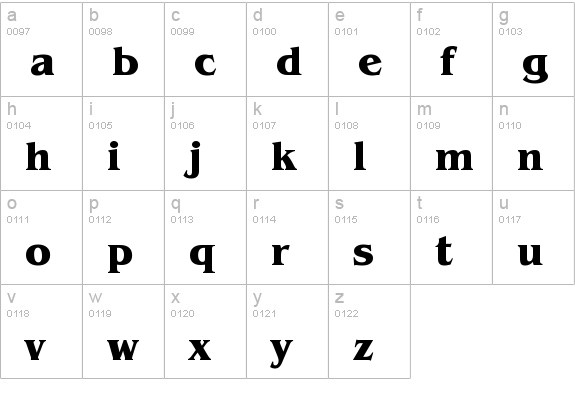
Benguiat Bold BT is a strong, high-contrast variant in the Benguiat typeface family \xE2\x80\x94 well suited to headlines, attention-grabbing titles, and strong calls-to-action.
Benguiat Bold BT font exudes a sense of strength and elegance with its bold letterforms and distinctive serifs. Designed by renowned typographer Ed Benguiat, this timeless typeface is perfect for making a statement in headlines, logos, and branding materials. The commanding presence of Benguiat Bold BT conveys confidence and authority, making it a popular choice for projects that require a bold and impactful typography. And the best part? Benguiat Bold BT font is available for free download at FontsMarket.com! Now you can easily access this iconic font to elevate your design projects without any cost. Don't miss out on the opportunity to add Benguiat Bold BT to your font collection and enhance your creative work with its striking aesthetic. Download it today and unleash the power of this classic typeface in your designs.